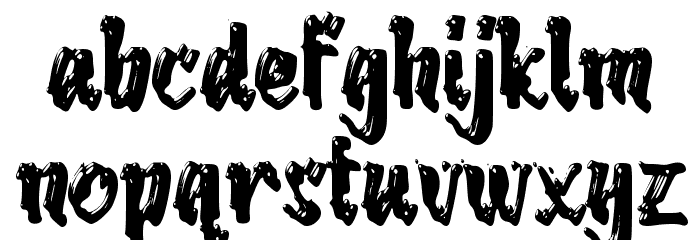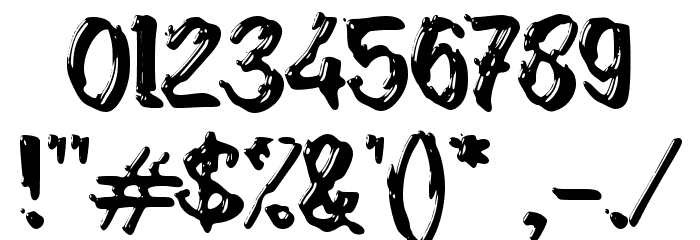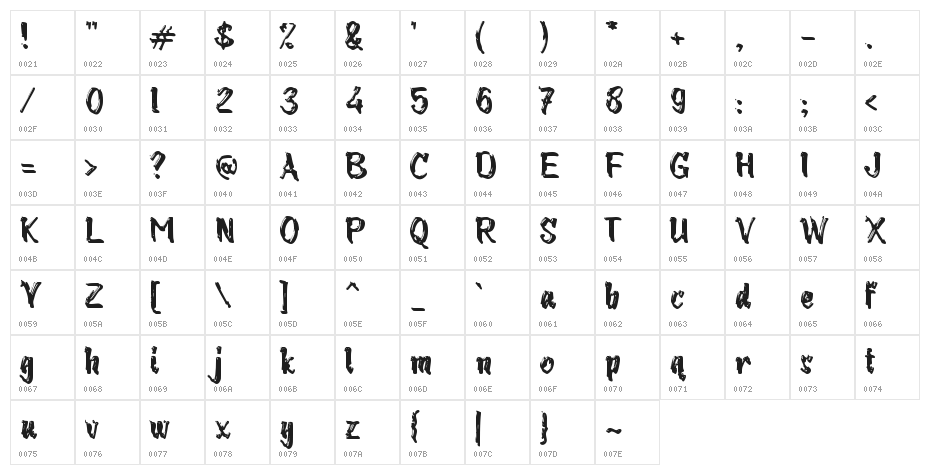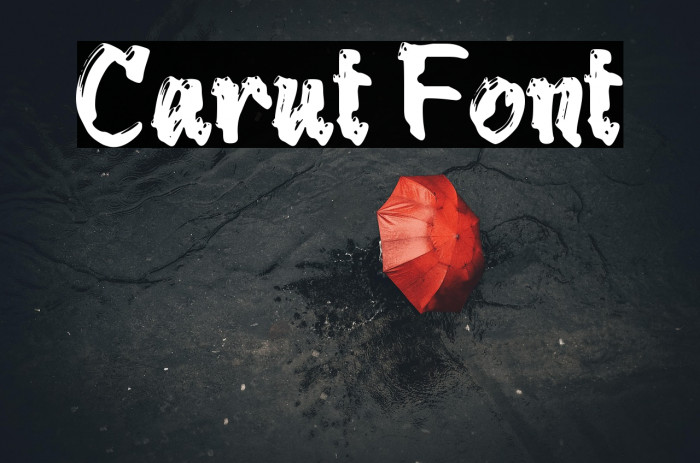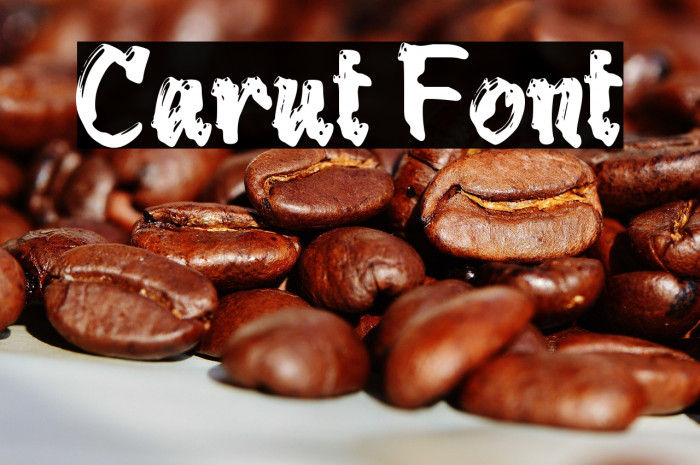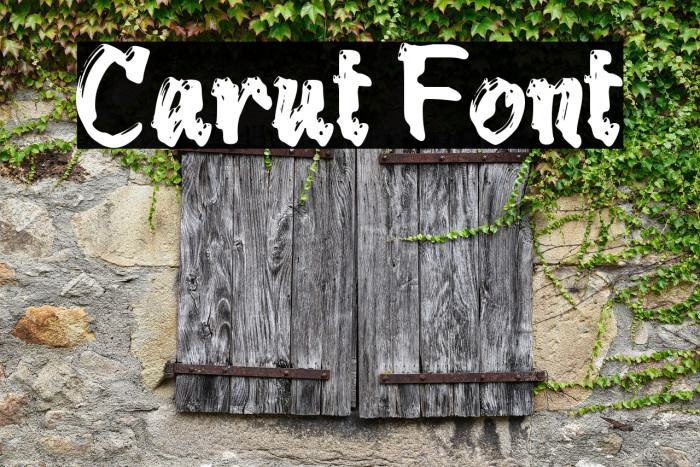
Carut Font
This font features a bold and expressive style with a brush-like texture that gives it a dynamic and energetic appearance. The characters are irregular and have a hand-painted look, with varying thicknesses and rough edges that add to its artistic flair. The uppercase and lowercase letters maintain a consistent style, while the numbers and special characters complement the overall design. This font is ideal for projects that require a creative and bold statement, as it captures attention with its unique and artistic presentation.
A bold, brush-style font with an energetic and artistic appearance.
- Proposed Projects: Ideal for posters, album covers, artistic branding, and creative advertising campaigns.
- Overall Style: Artistic, Expressive